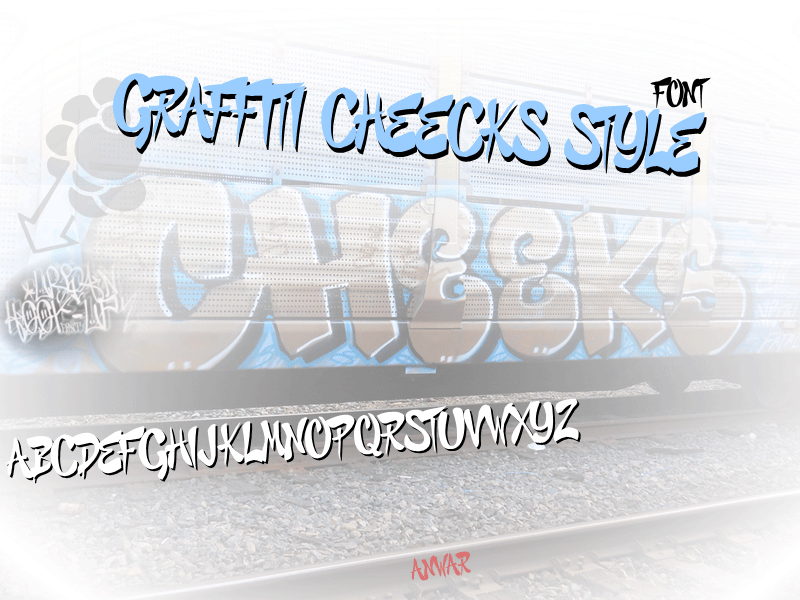
Font name: | Graffiti Cheecks Style |
Author: | Urban Hook-Upz |
Note by Urban Hook-Upz | |
Urban Hook-UPz: Old School "CHEECKS" GET UP STYLE! Simple . . . Nice. . . . Effective . . |